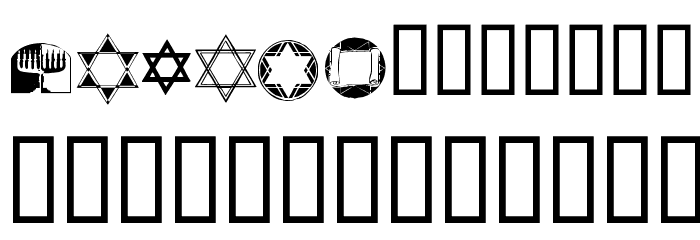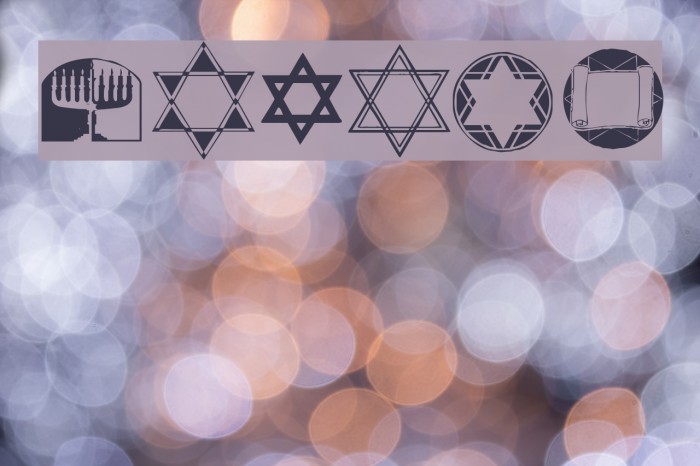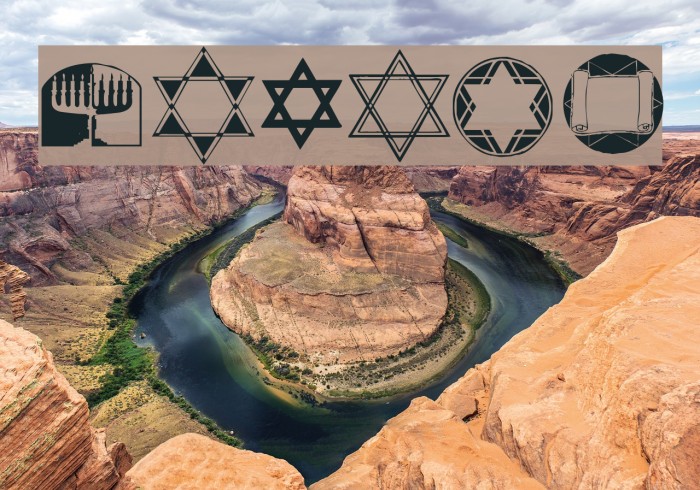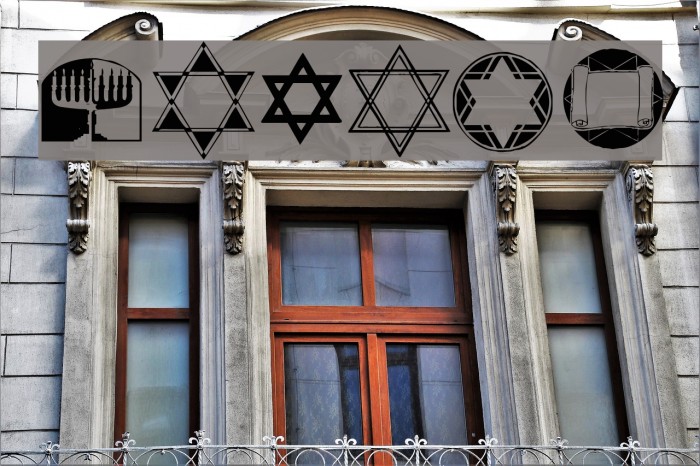
KR Passover Dings Font
This is a decorative font featuring symbols associated with Jewish culture and traditions. The characters include various representations of the Star of David, menorahs, and other culturally significant icons. Each symbol is intricately designed, capturing the essence of traditional Jewish motifs. The font is primarily symbolic, lacking traditional alphanumeric characters, making it ideal for thematic designs. The bold outlines and detailed patterns within each symbol add a unique flair, making it suitable for decorative purposes.
A decorative font featuring Jewish cultural symbols like the Star of David and menorahs.
- Proposed Projects: Ideal for creating themed invitations, holiday cards, educational materials, and cultural event posters.
- Use Case: Logos, Decorative elements, Cultural event materials